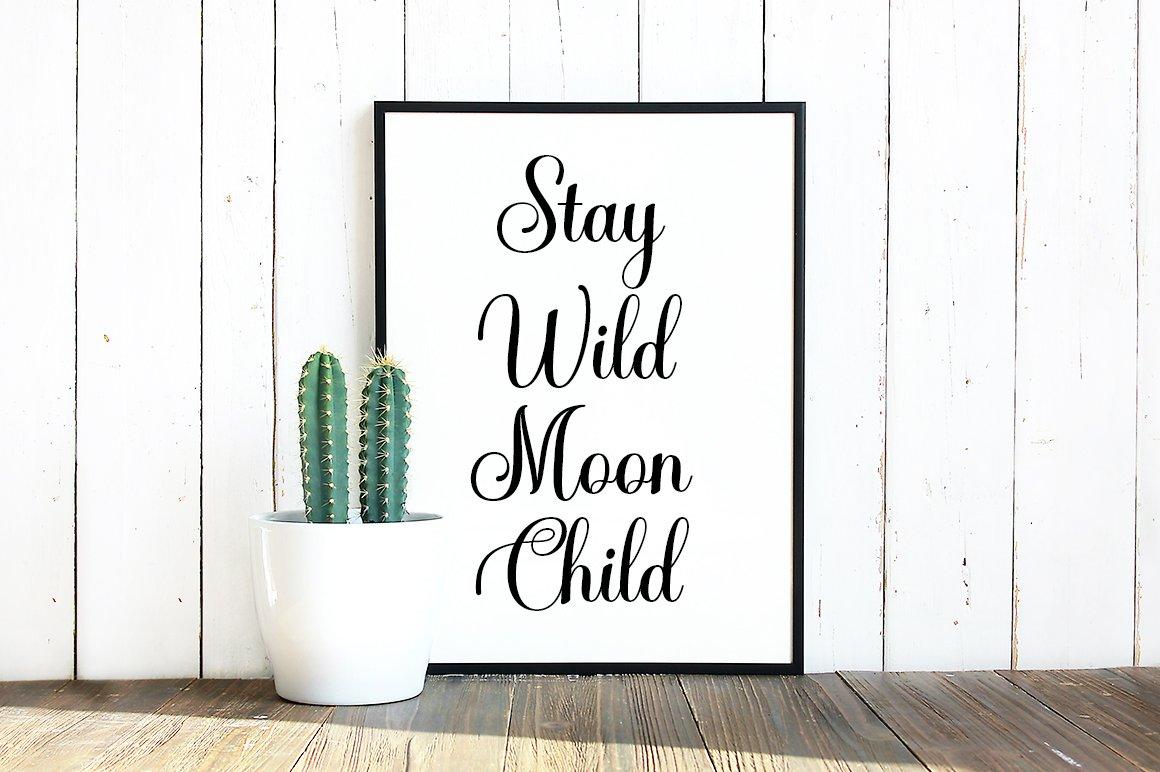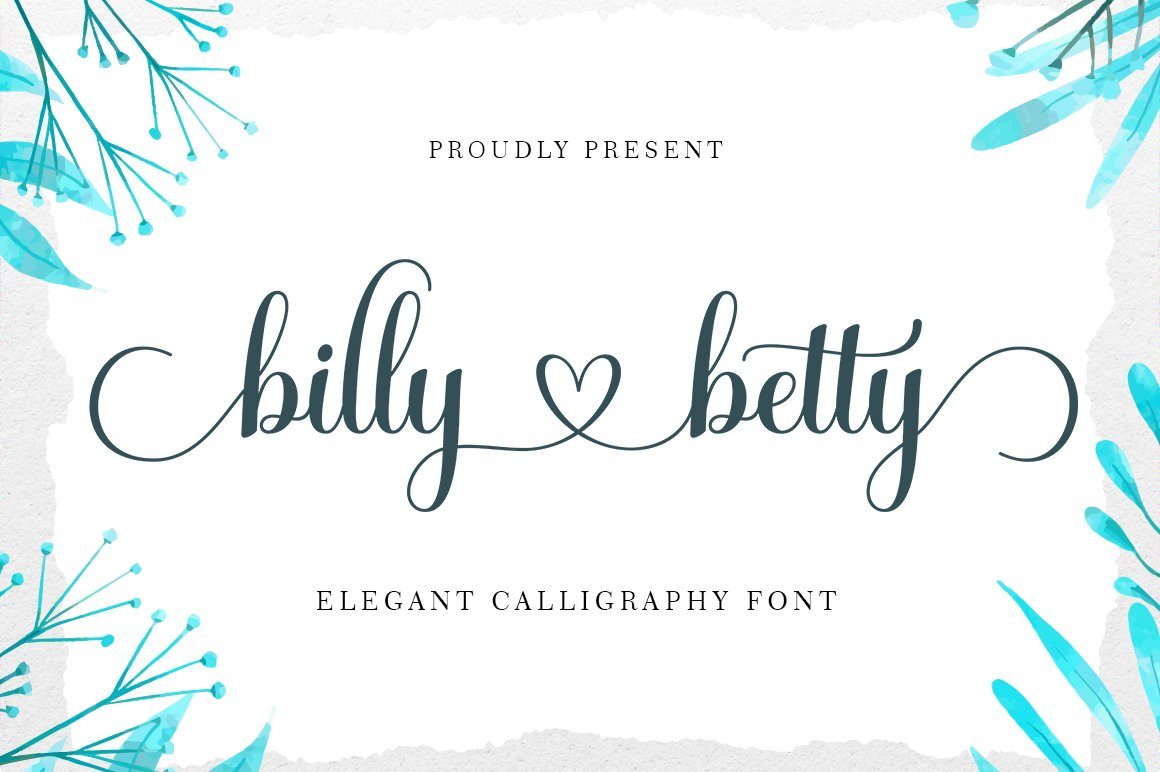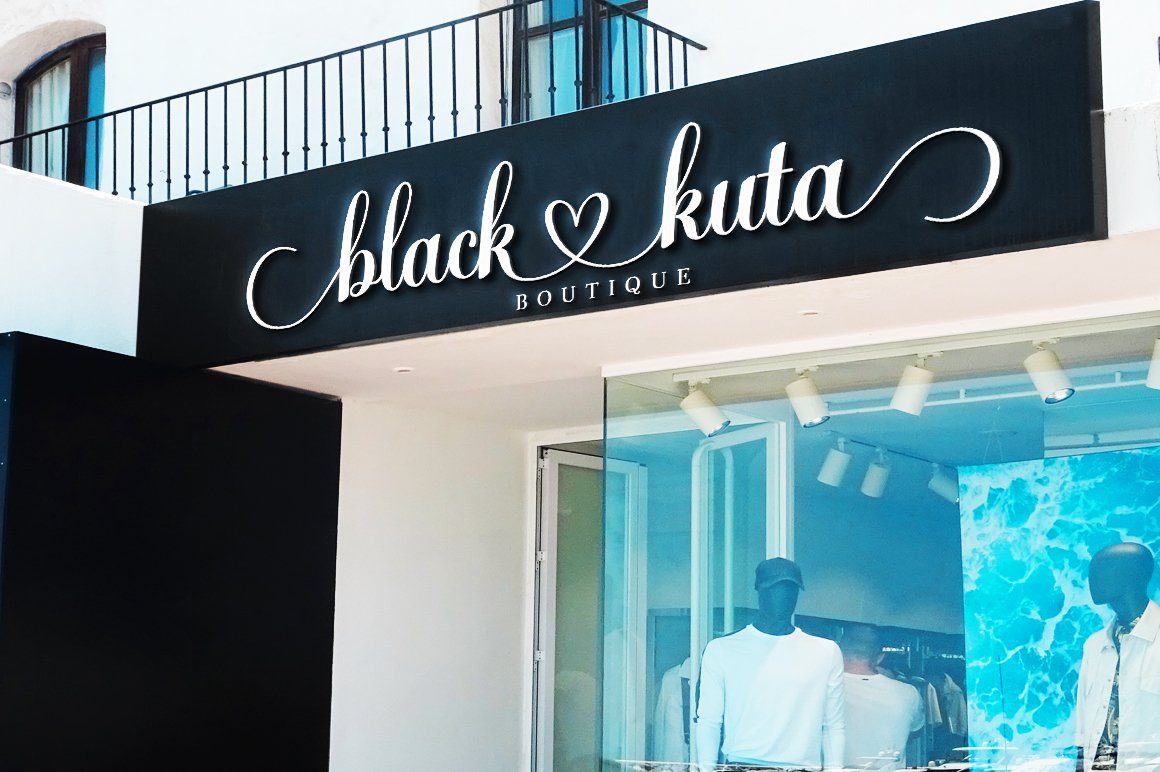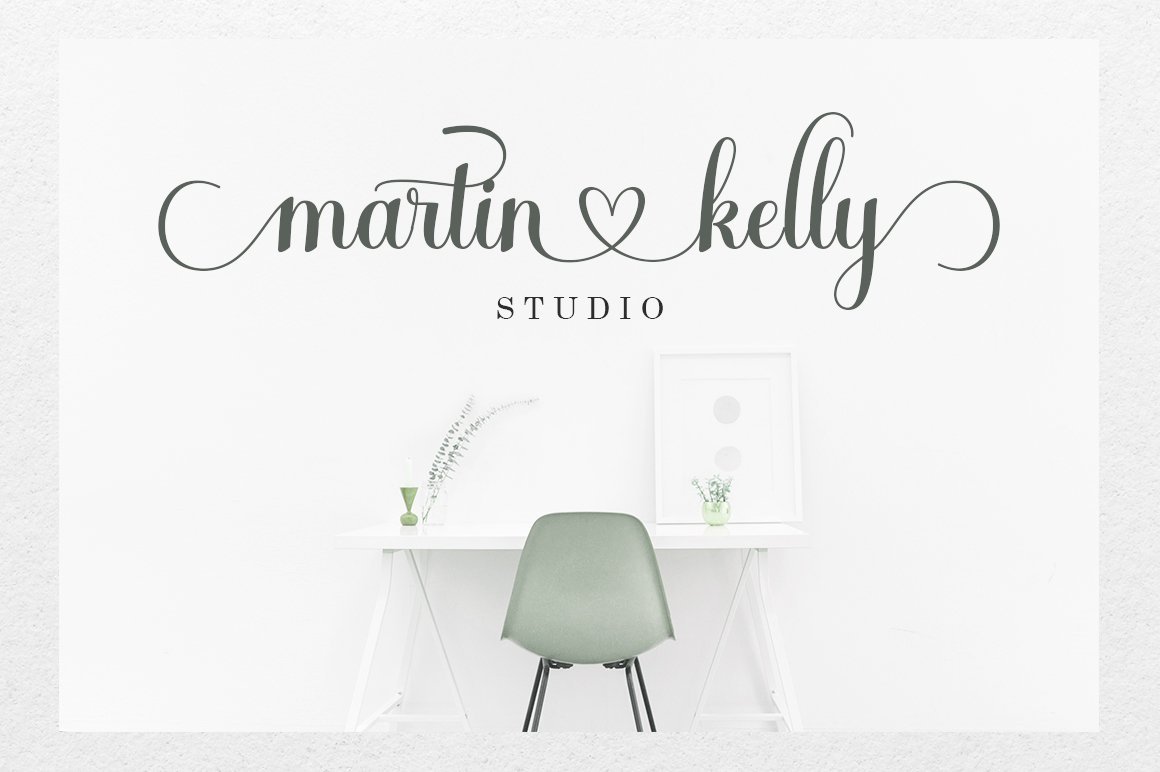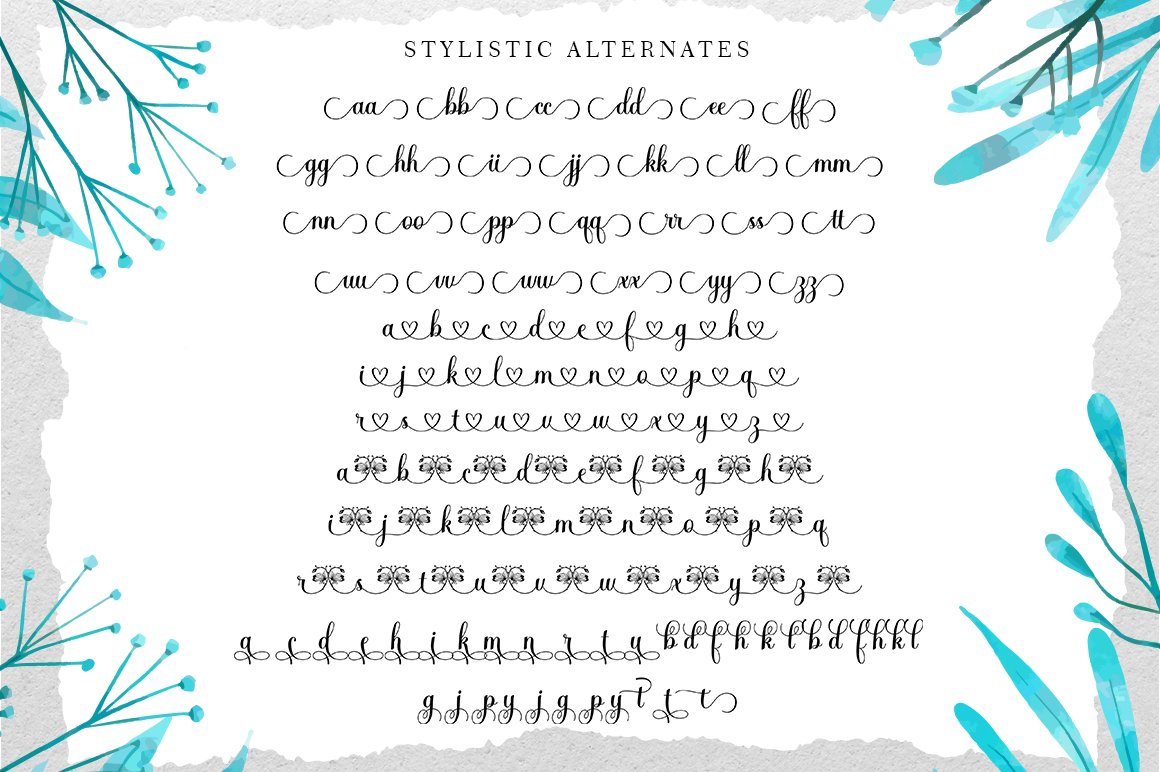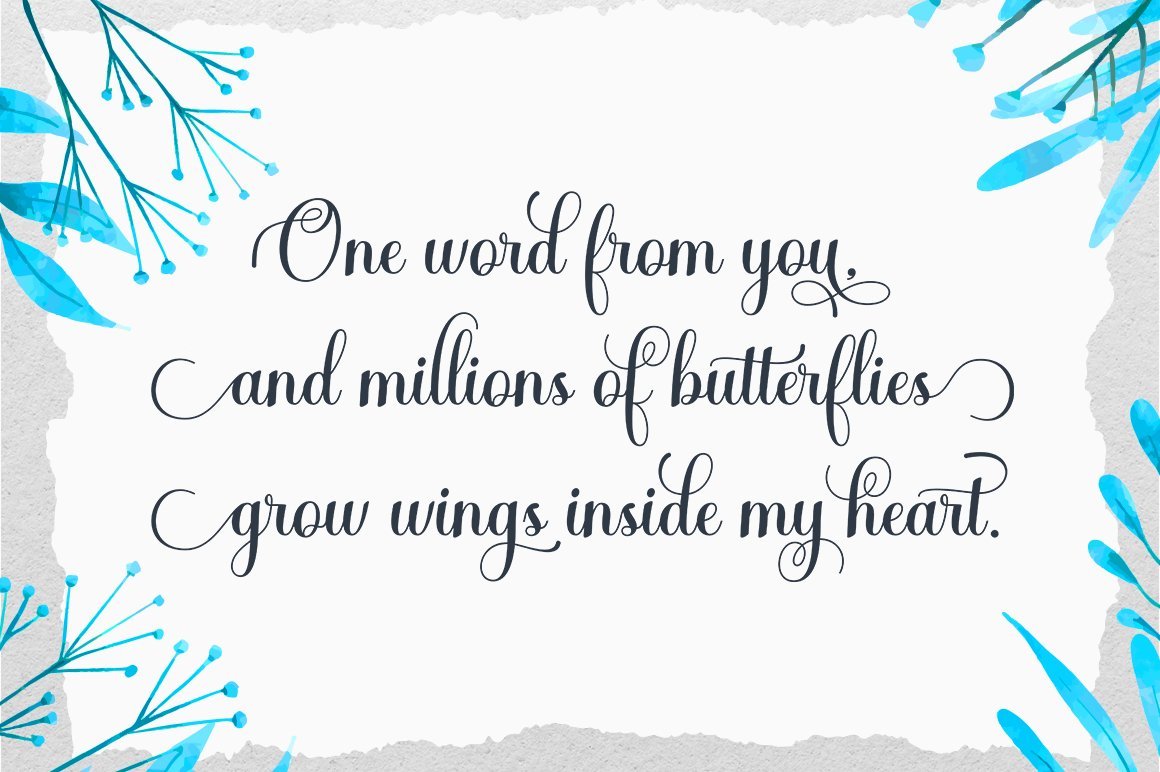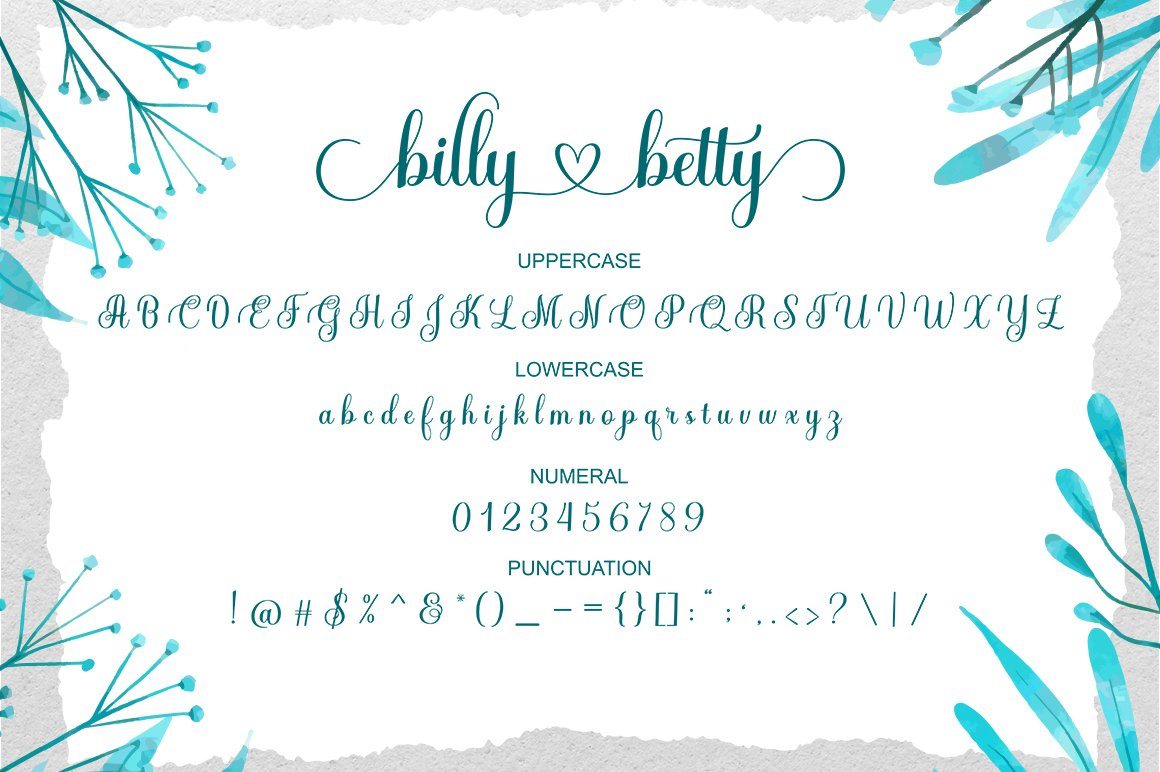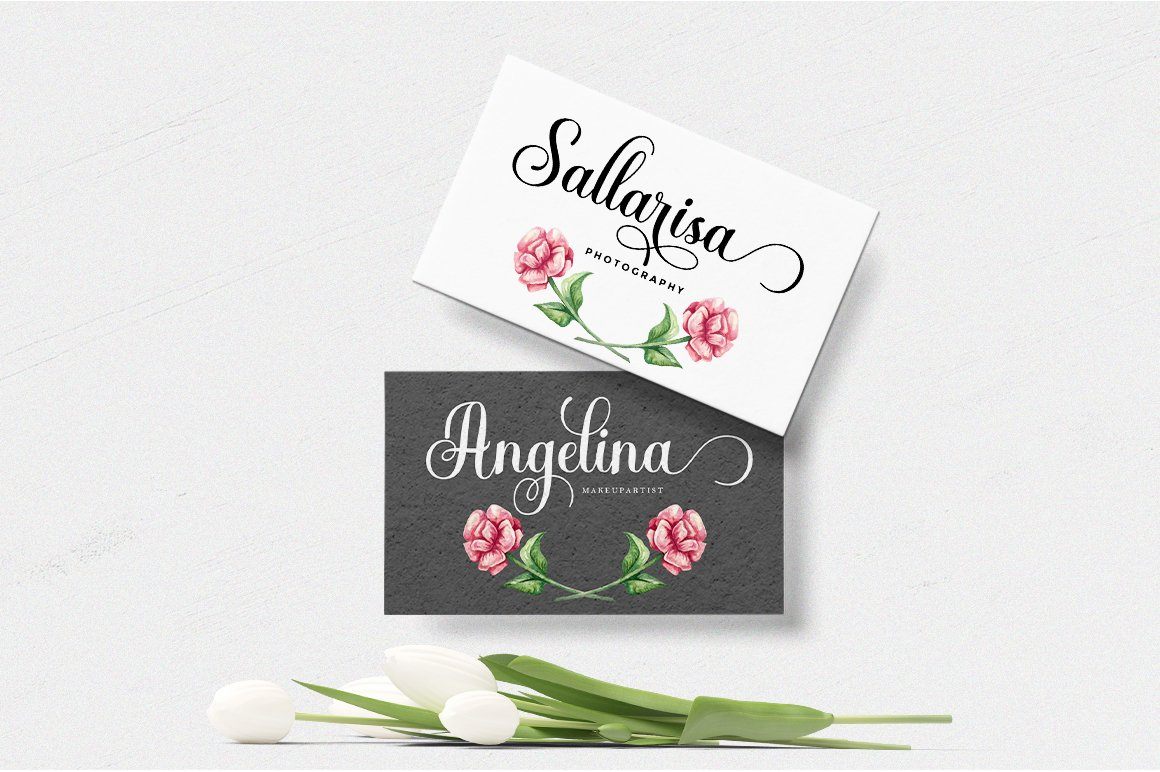
billy betty
About billy betty
billy betty is an elegant calligraphy font, featuring hearts as ornaments. This font is PUA encoded which means you can access all of the glyphs and swashes with ease! Romantic and dreamy, Billy Betty is ideal for each of your favorite designs.